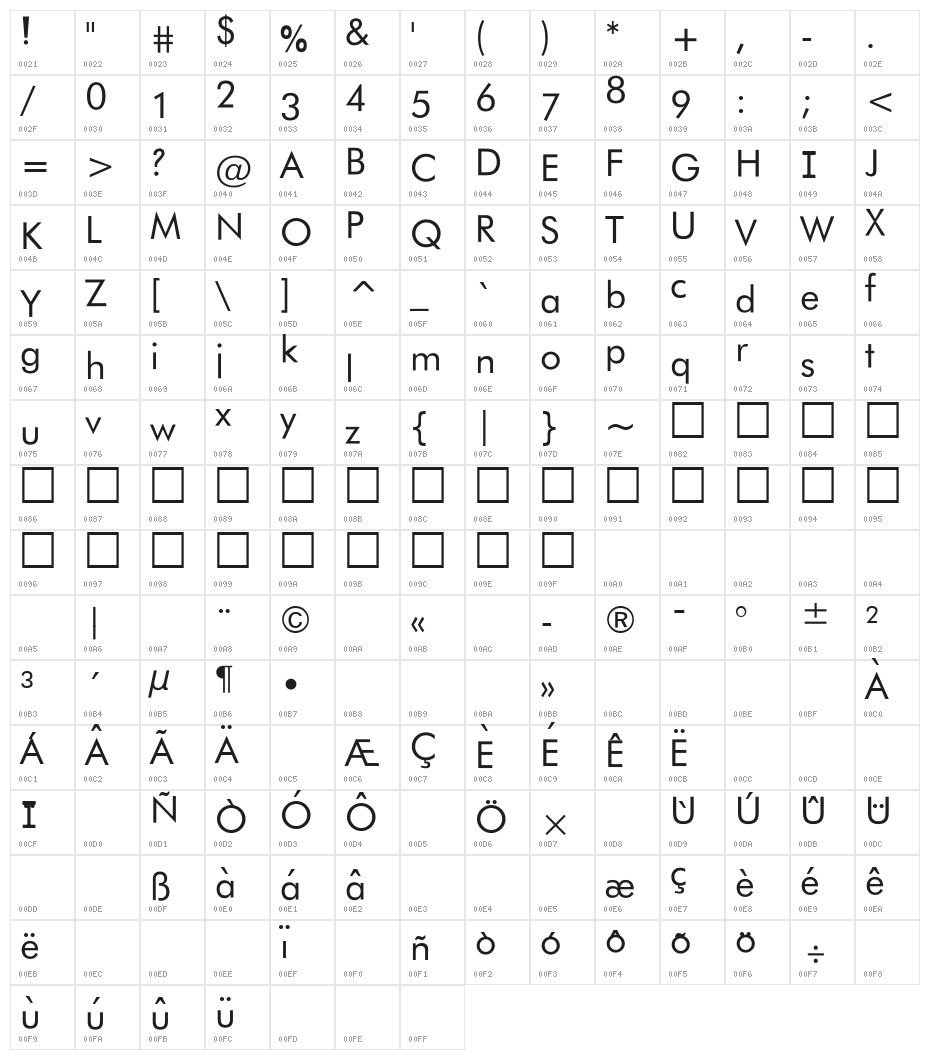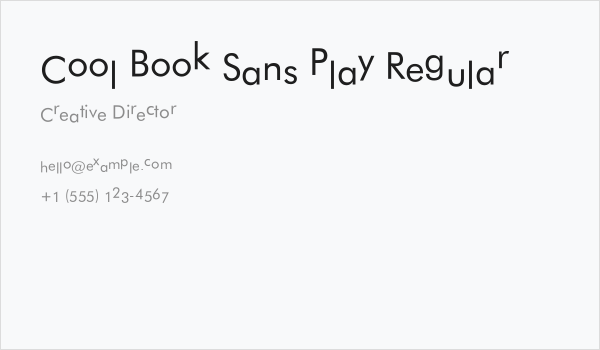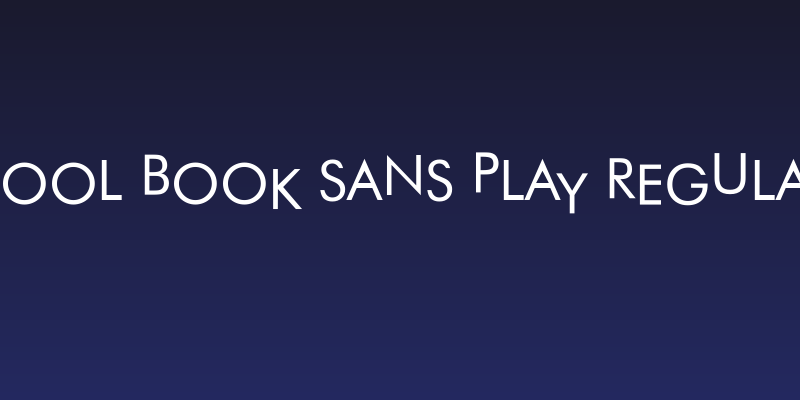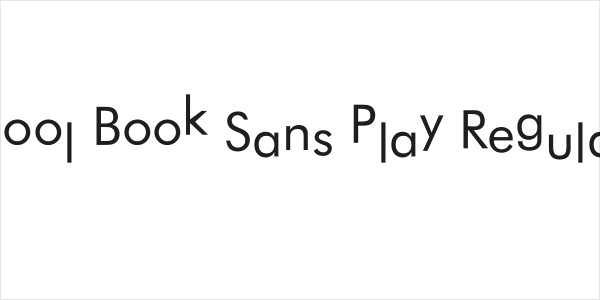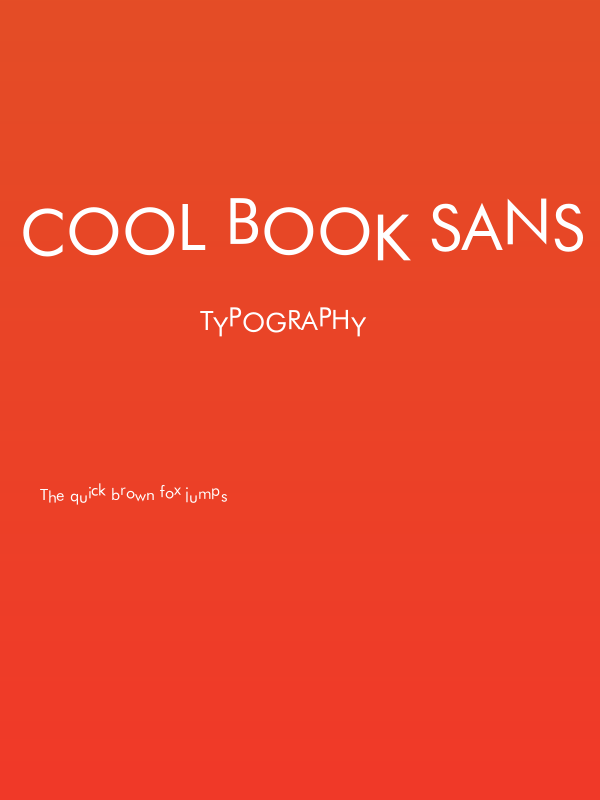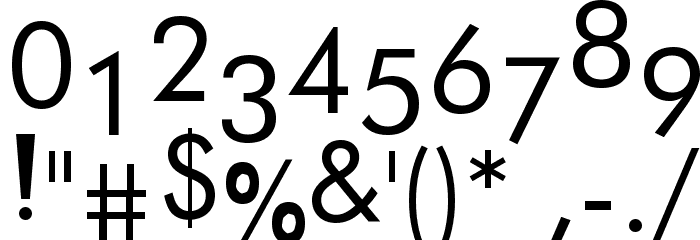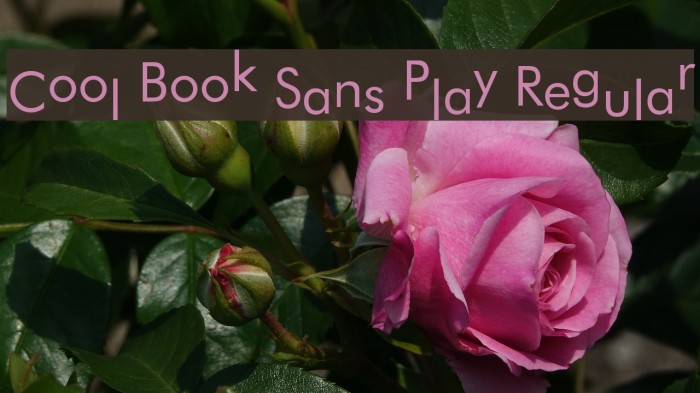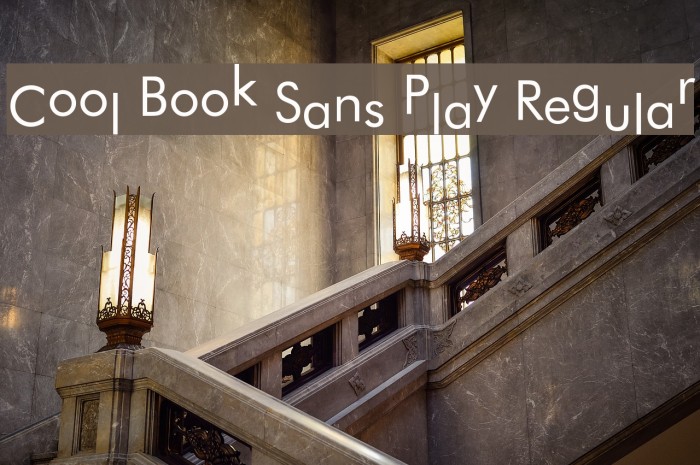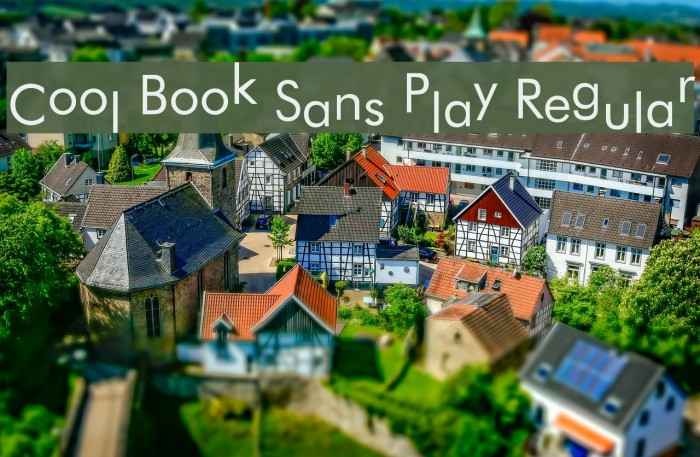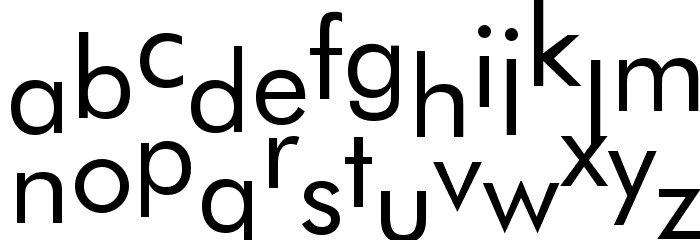
Cool Book Sans Play Regular Font
Cool Book Sans Play Regular Description
This font features a clean and modern sans-serif design, characterized by its geometric shapes and uniform stroke widths. The uppercase letters are bold and distinct, while the lowercase letters maintain a consistent style that complements the uppercase. The numerals are clear and easily readable, making them suitable for various applications. The special characters are well-defined, adding versatility to the font. Its simplicity and clarity make it ideal for digital and print media, ensuring legibility across different sizes and formats.
| Use Case | Headlines, Body text, Logos |
| Proposed Projects | Ideal for branding, digital interfaces, advertising, and editorial design. |